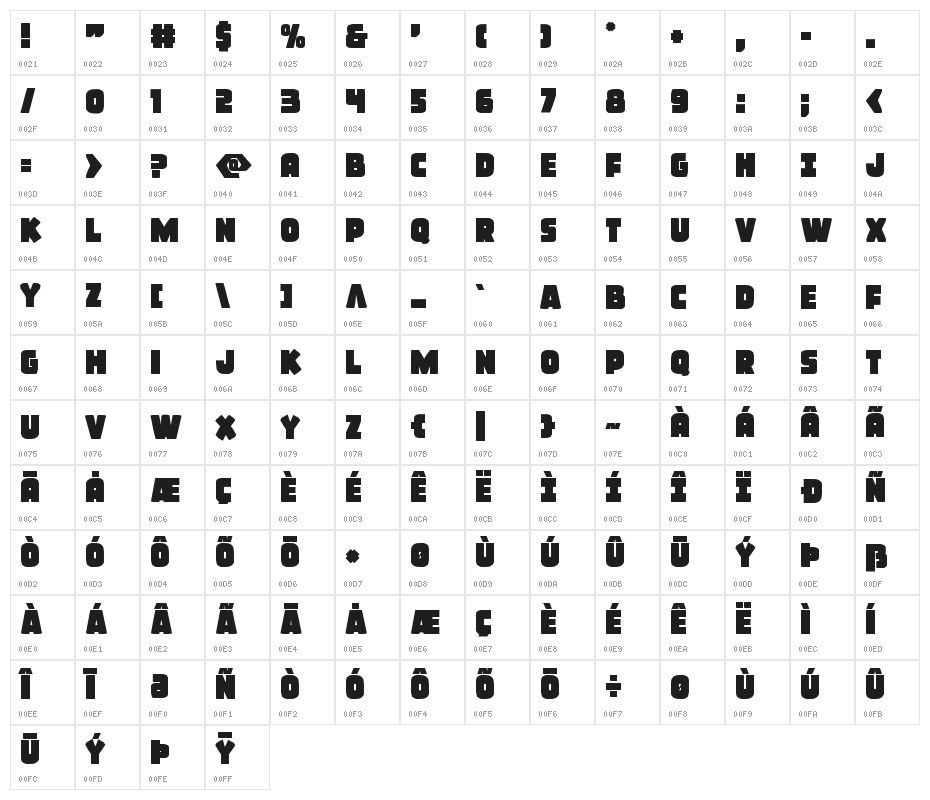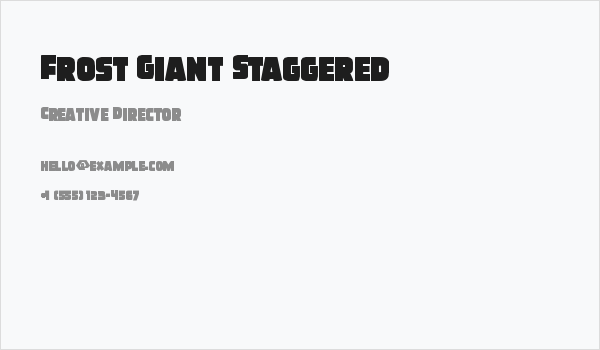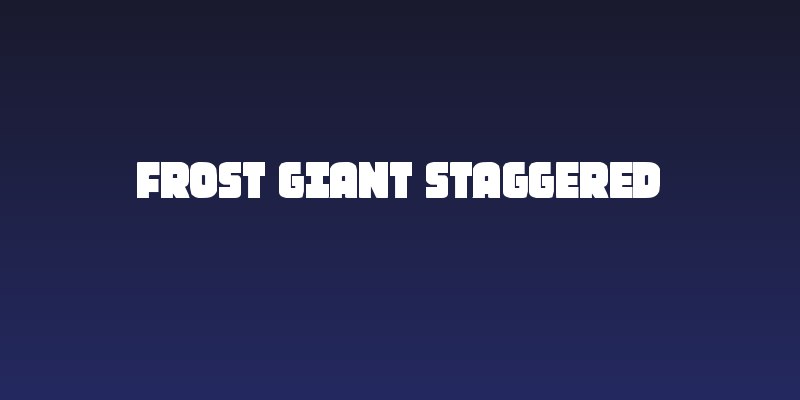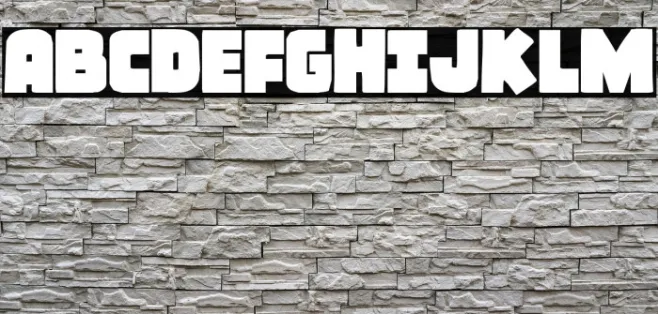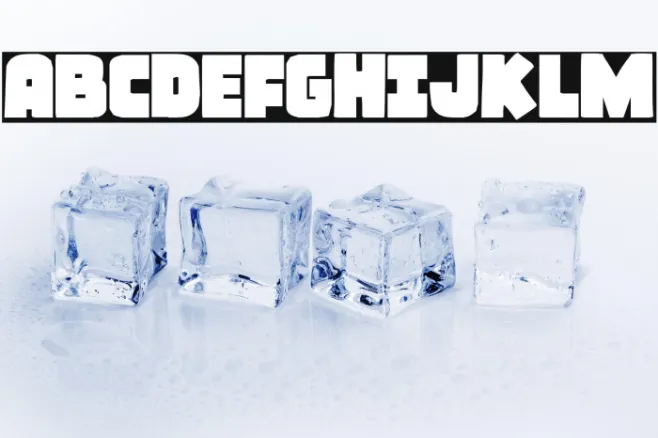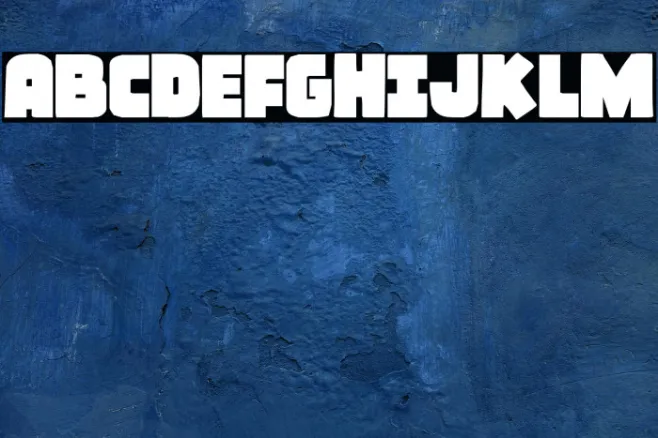
Frost Giant Staggered Font
Frost Giant Staggered Description
This font features bold, heavy lettering with a strong presence, characterized by its blocky and geometric shapes. The letters are uniformly wide, creating a sense of stability and strength. The design is consistent across uppercase, lowercase, and numerical characters, maintaining a cohesive look. The special characters are equally bold, complementing the overall style. The font's solid and robust appearance makes it suitable for impactful designs where attention is key.
| Proposed Projects | Ideal for posters, headlines, logos, and branding materials that require a bold statement. |